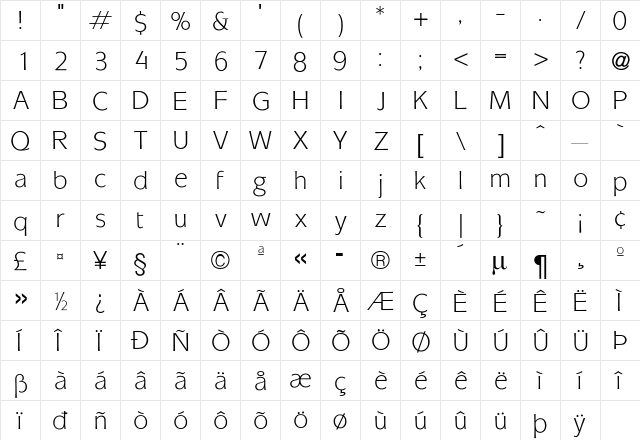
Mixer Regular Font Preview
Mixer Regular
Design Context for Mixer Typeface
Mixer offers clean, dependable letterforms without strong stylistic allegiance, making it a practical choice for designers who need flexibility.